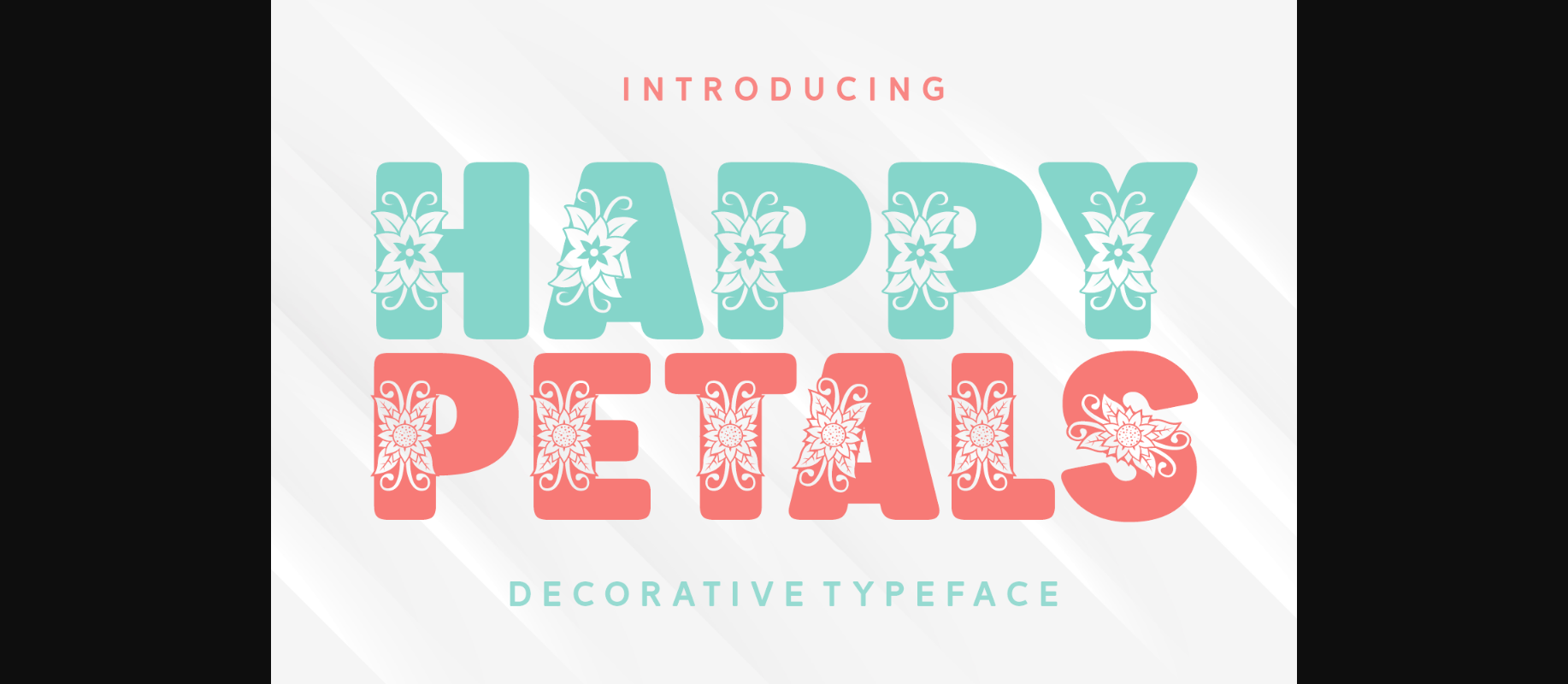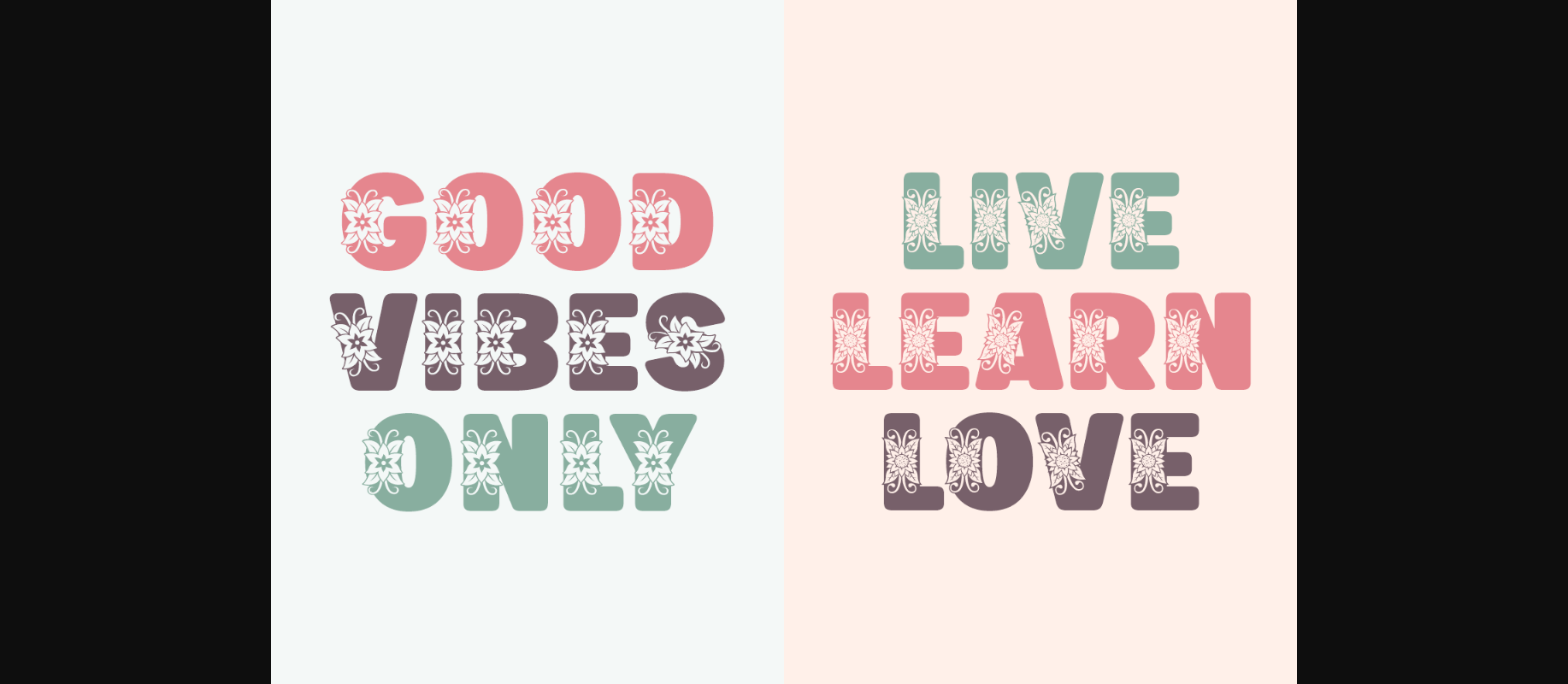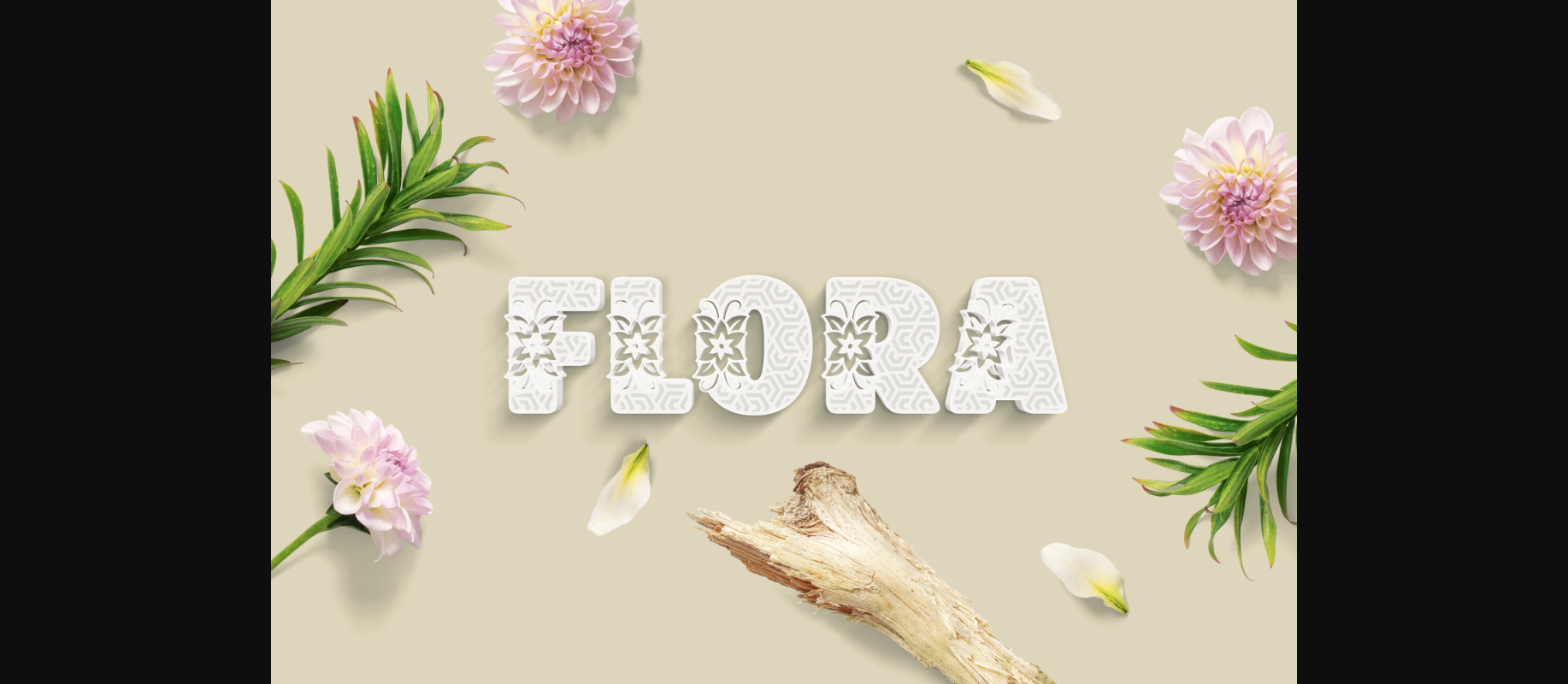
About Happy Petals Font
Happy Petals is a gorgeous decorative font, that fits incredibly well to this time of the year. No matter the topic, this font will be an incredible asset to your fonts’ library, as it has the potential to elevate any creation.